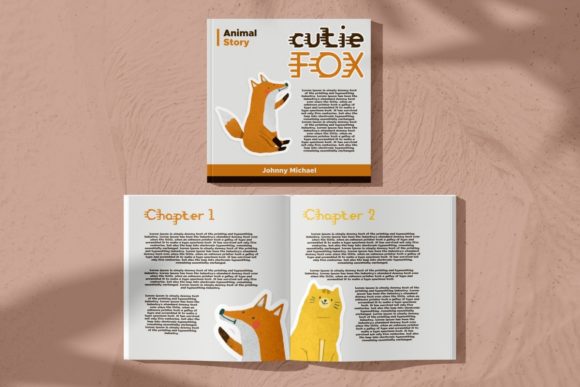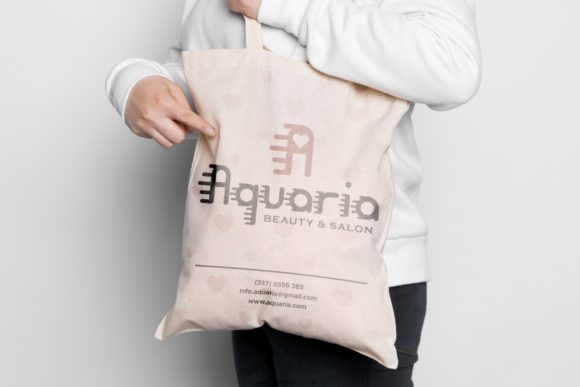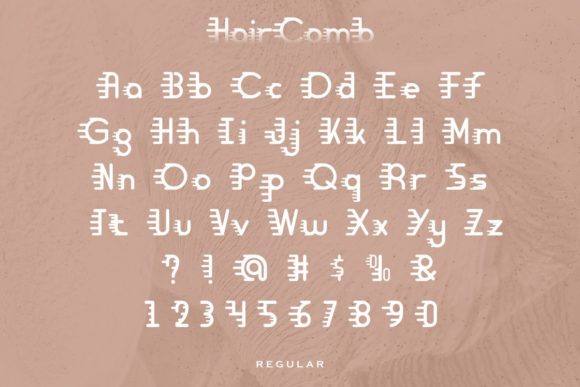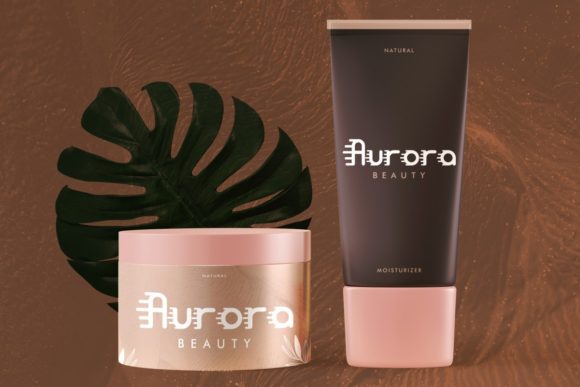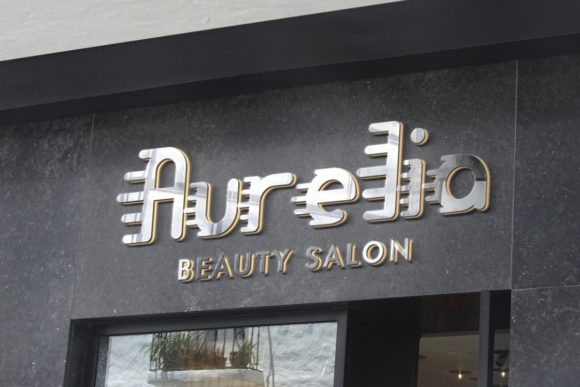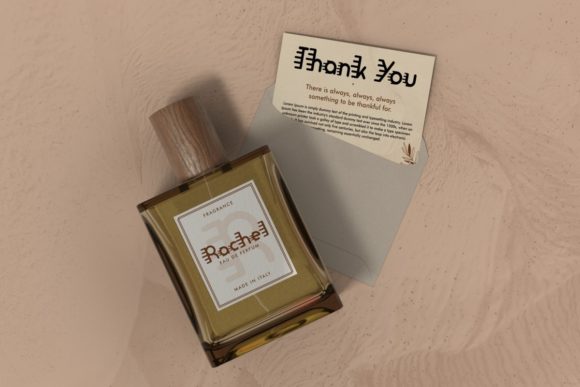
Introducing Hair Comb Font: A Creative Decorative Font Inspired by Fire and Techno
In the world of typography, fonts play a crucial role in conveying the tone and personality of a design. For designers and crafters looking to add a touch of uniqueness to their projects, the Hair Comb Font is an exciting new discovery. This creative decorative font is inspired by the dynamic elements of fire and comb, combined with the edginess of techno and hip posters.
What Makes Hair Comb Font Special?
The Hair Comb Font boasts a unique style that sets it apart from more traditional fonts. Its design is characterized by bold, fiery lines and a comb-like structure that gives it a distinctive look. This font is not just a simple typeface; it’s a statement piece that can elevate your designs to the next level. Whether you’re working on a game, technology project, event promotion, headline, logo, poster, title, or product packaging, the Hair Comb Font can add a special effect that captures attention.
- Unique Style: The font’s design is inspired by fire and comb, offering a fresh and distinctive look.
- Versatility: It works well for a wide range of applications, including games, technology, events, headlines, logos, posters, titles, and product packaging.
- Techno and Hip Inspiration: The font combines the edginess of techno with the coolness of hip posters, making it perfect for modern and trendy designs.
- Creative Freedom: With the Hair Comb Font, designers have the opportunity to explore new creative avenues and express their ideas in a unique way.
How to Use Hair Comb Font in Your Designs
Incorporating the Hair Comb Font into your designs is straightforward. Here are a few tips to make the most of this creative font:
- Pair it with Solids: For a bold look, pair the Hair Comb Font with solid colors or gradients that complement its fiery and techno-inspired style.
- Experiment with Sizes: The font’s unique style is preserved in various sizes, making it suitable for both large headlines and smaller body texts.
- Mix and Match: Don’t be afraid to combine the Hair Comb Font with other fonts to create a layered look that adds depth to your design.
- Play with Effects: Enhance the font’s fiery inspiration by adding effects like glow, shadow, or texture that match its dynamic style.
Who Can Benefit from Hair Comb Font?
The Hair Comb Font is a valuable resource for a wide range of professionals and hobbyists, including:
- Graphic Designers: Looking for unique fonts to make their designs stand out.
- Game Developers: Seeking distinctive typography for game titles, menus, and promotional materials.
- Event Planners: Needing eye-catching fonts for event posters, invitations, and signage.
- Crafters and Makers: Creating product packaging, labels, or promotional materials that require a personal touch.
- Marketing Professionals: Aiming to create bold and memorable headlines for campaigns.
The Hair Comb Font is more than just a typeface; it’s a creative tool that can transform your designs with its unique, fire-inspired, and techno-infused style. Whether you’re a professional designer or a crafty hobbyist, this font offers endless possibilities for innovation and expression. By incorporating the Hair Comb Font into your projects, you’re not just choosing a font; you’re making a statement.